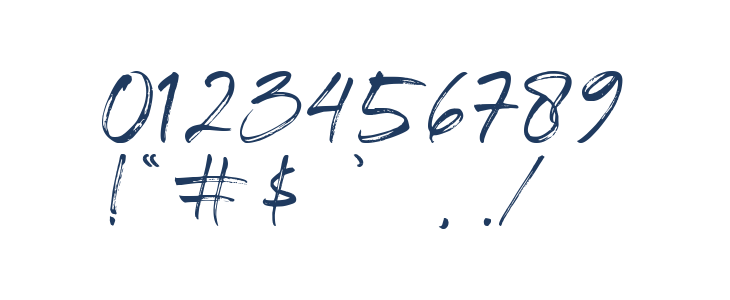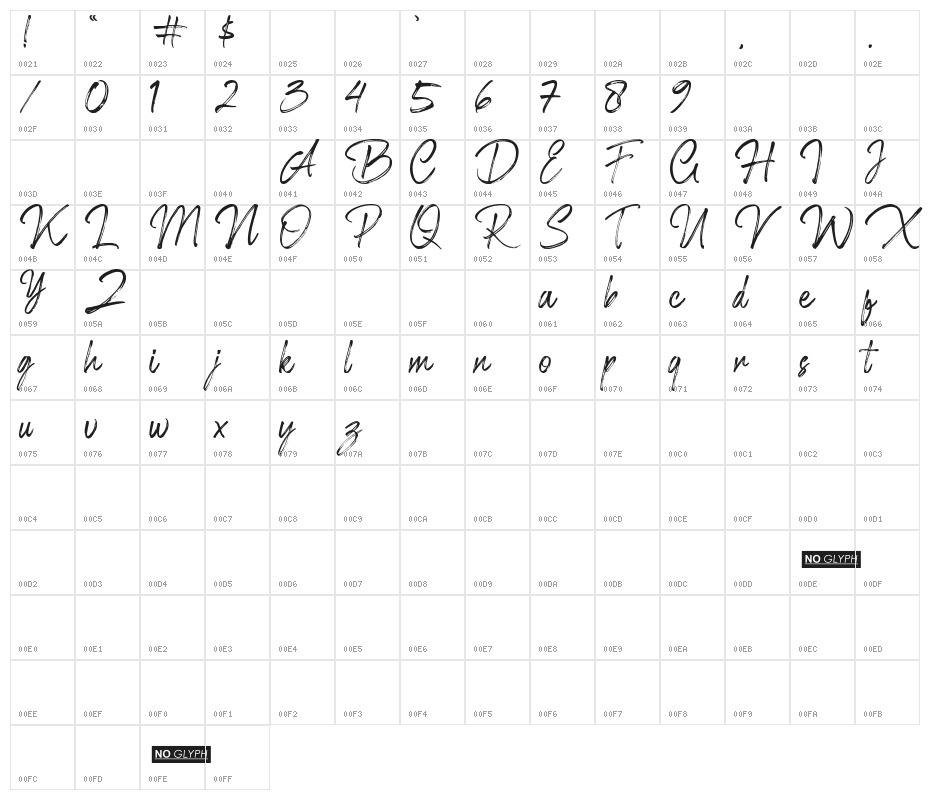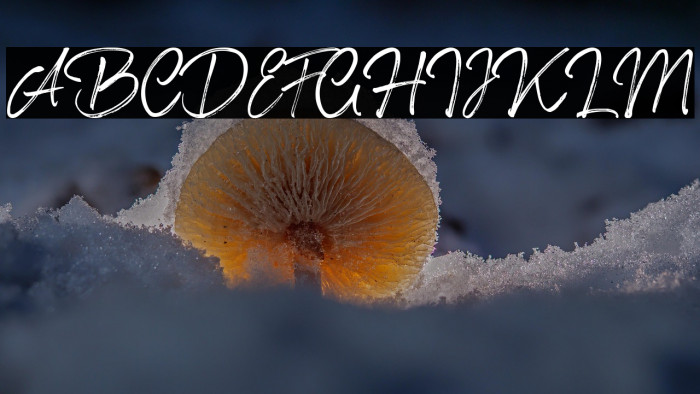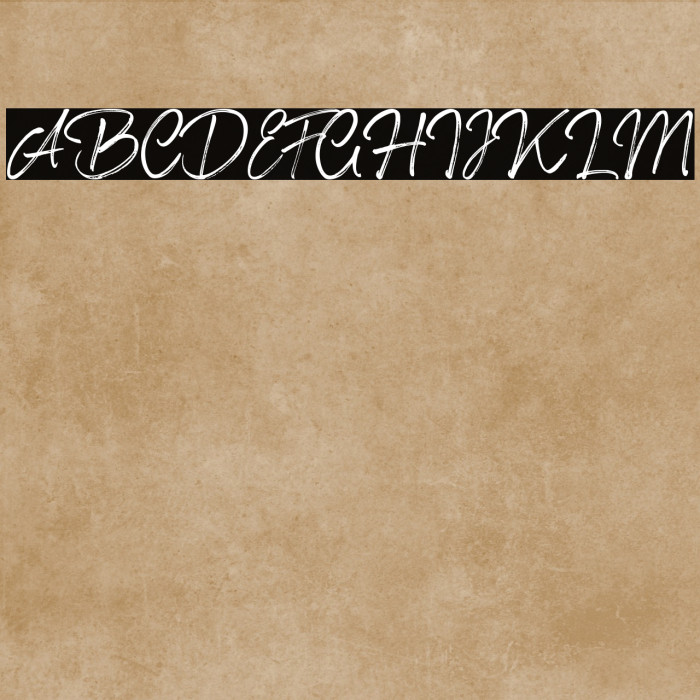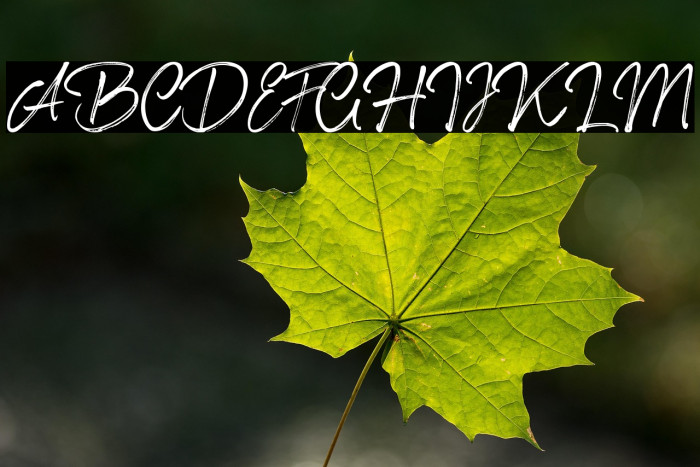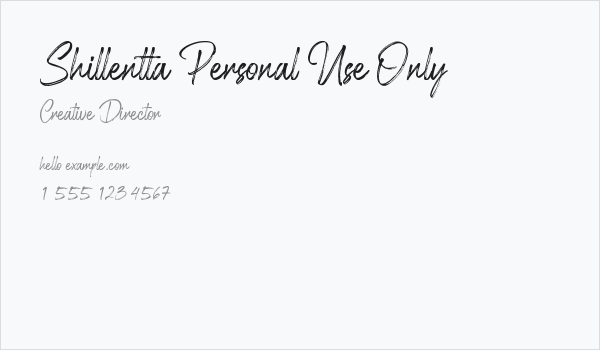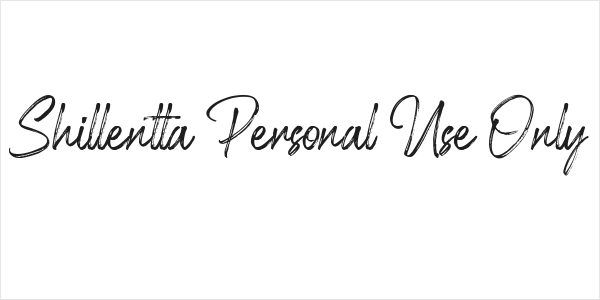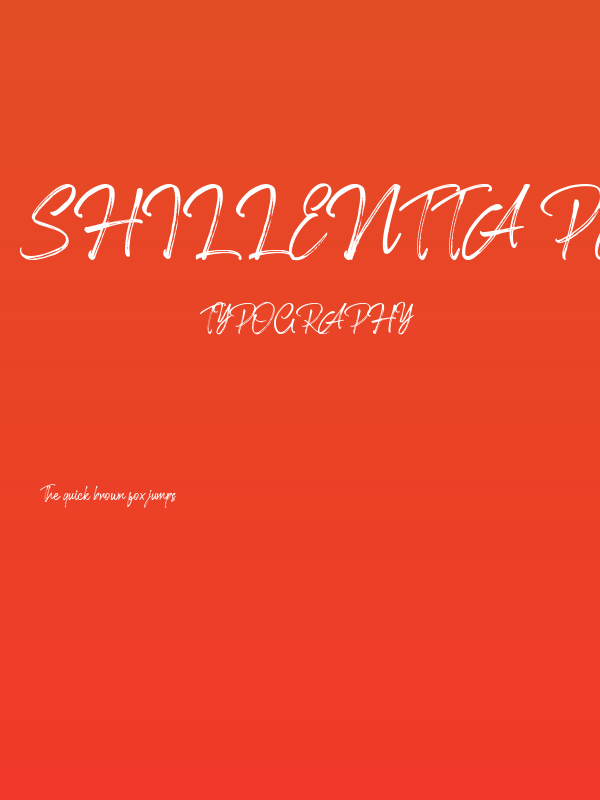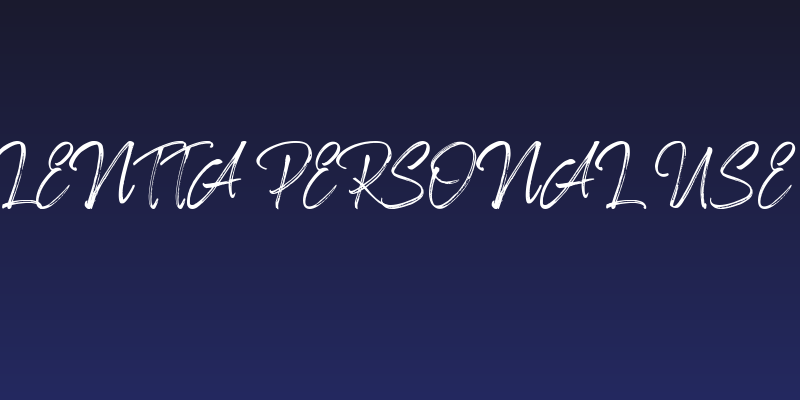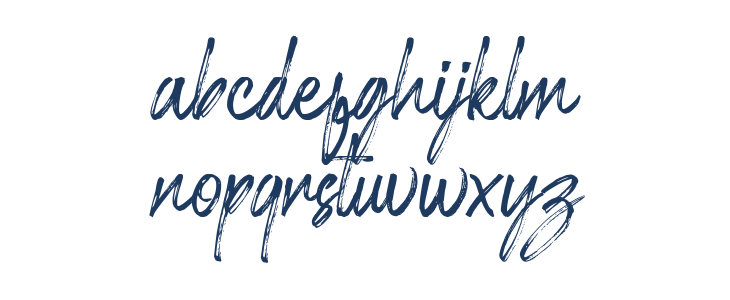
Shillentta Personal Use Only Font
Shillentta Personal Use Only Description
This font features a dynamic and expressive script style, characterized by its flowing, cursive letterforms that mimic natural handwriting. The strokes are varied, with a mix of thick and thin lines that create a sense of movement and energy. The uppercase letters are bold and prominent, while the lowercase letters maintain a consistent fluidity. Numbers and special characters are designed to complement the overall aesthetic, maintaining the same handwritten feel. This font is ideal for projects that require a personal touch or a creative flair, such as invitations, greeting cards, or artistic branding.
| Proposed Projects | Ideal for invitations, greeting cards, artistic branding, and creative projects. |